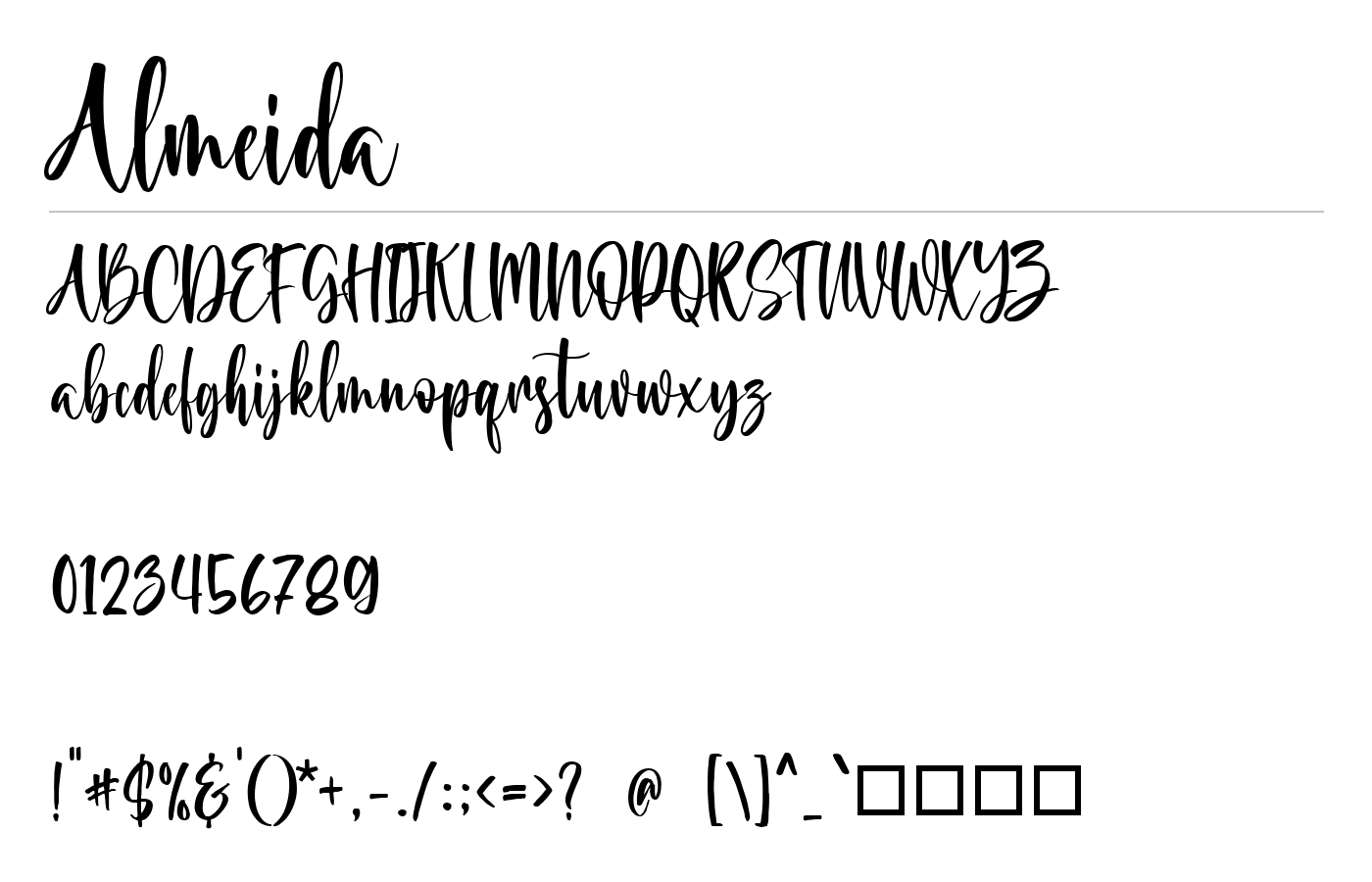
Almeida is a stylish handwritten script font that combines elegant, flowing letterforms with a casual, friendly vibe. Its tall, narrow characters and varied stroke thicknesses create a dynamic, personalized feel, making it ideal for creative branding, invitations, and expressive headlines that need a touch of warmth and individuality.
Almeida Font
About Almeida Font